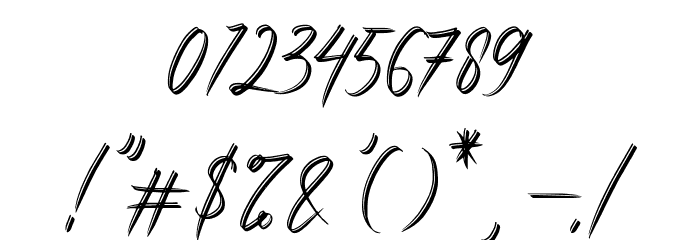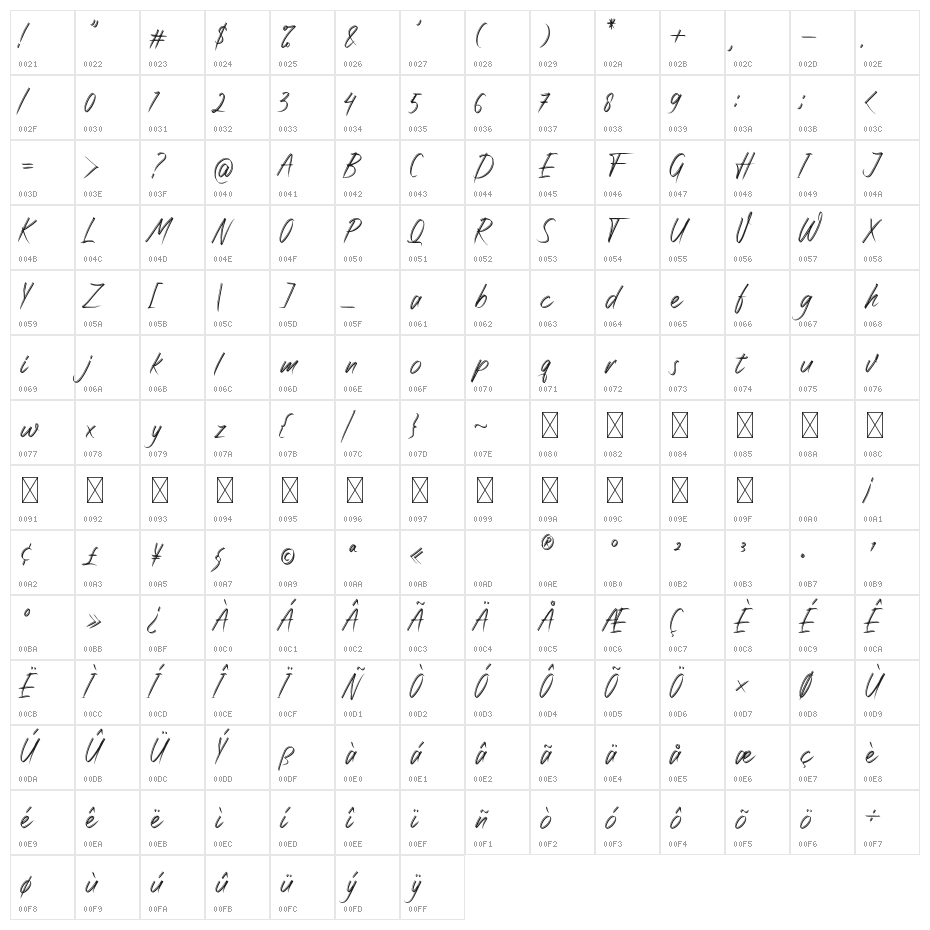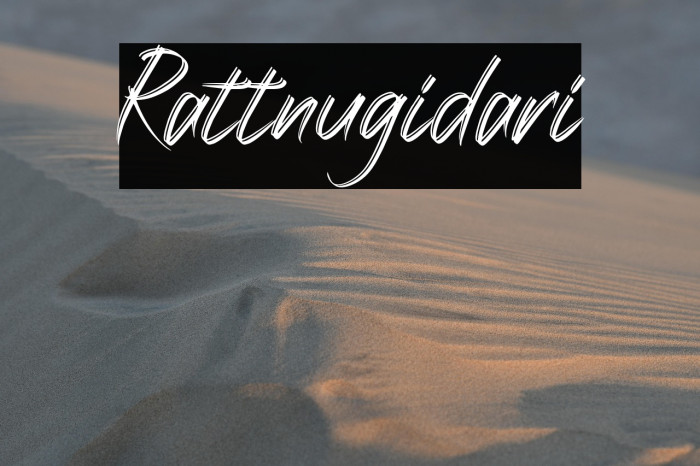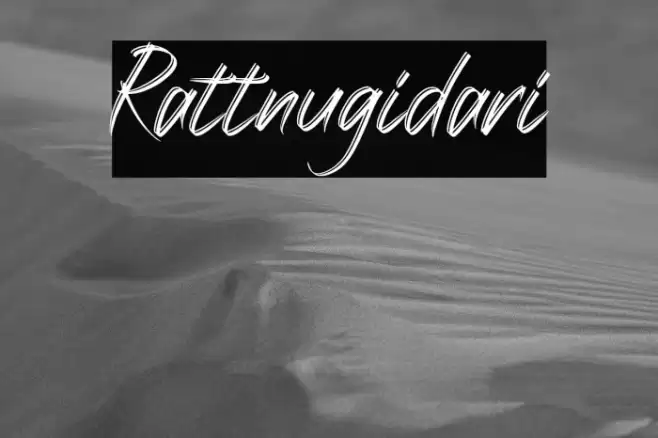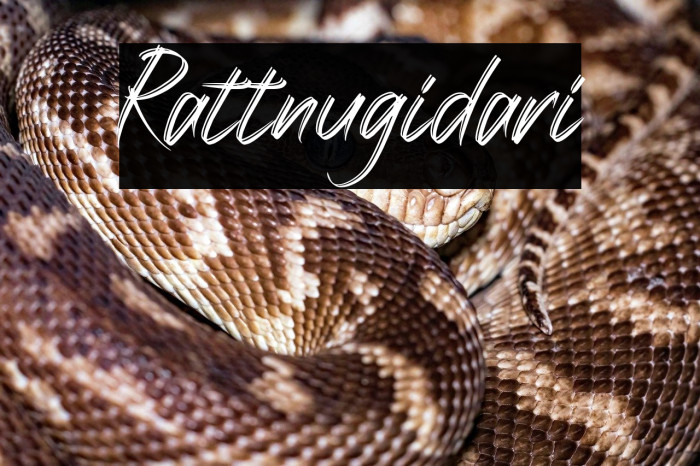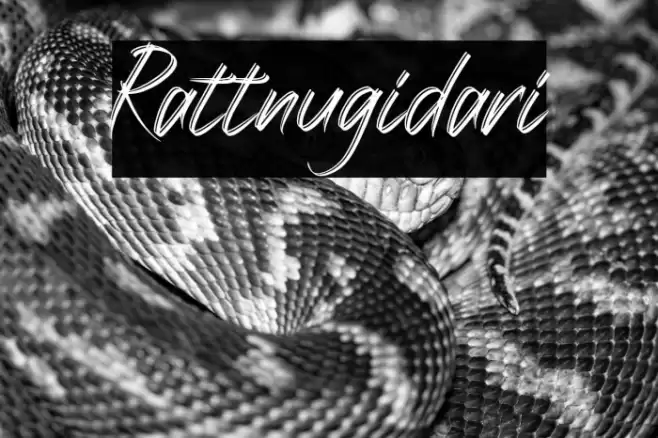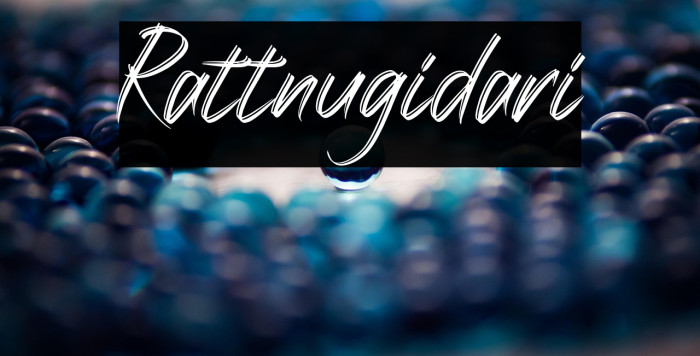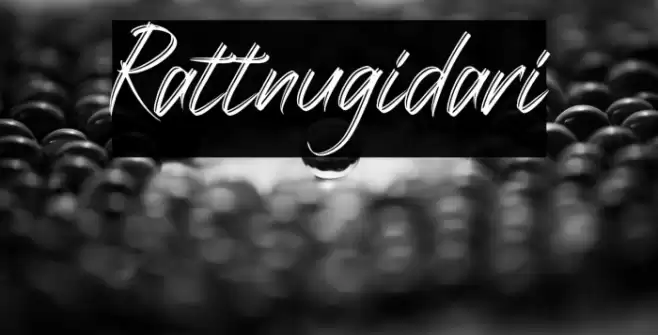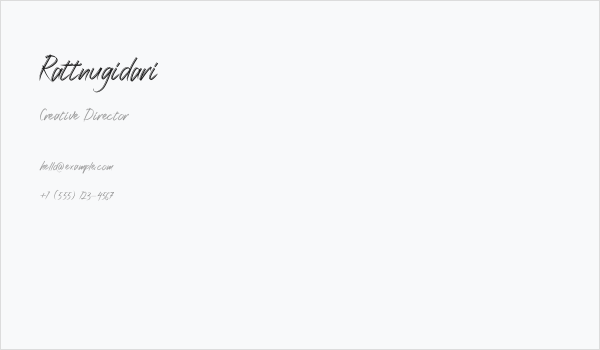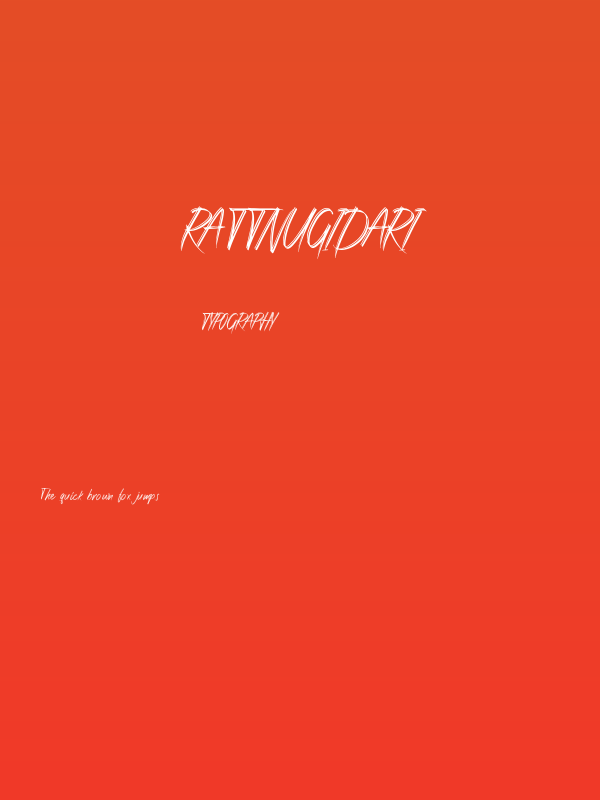
Rattnugidari Font
Rattnugidari Description
This font exhibits a dynamic and energetic style, characterized by its sharp, angular strokes and fluid, cursive-like appearance. The letters are slightly slanted, giving a sense of motion and liveliness. The uppercase letters are bold and prominent, while the lowercase letters maintain a consistent flow, enhancing readability. The numerals and special characters are crafted with the same attention to detail, ensuring a cohesive look throughout. The overall design is modern and expressive, making it suitable for projects that require a touch of personality and flair.
| Use Case | Headlines, Logos, Creative projects |
| Proposed Projects | Ideal for branding, advertising, and creative projects that require a bold, expressive typeface. |